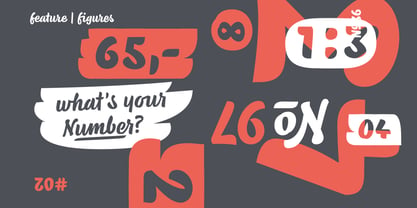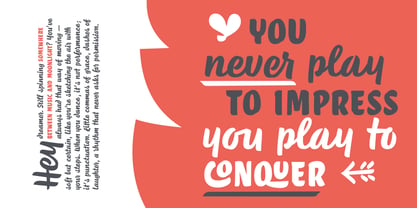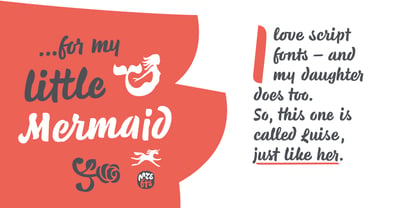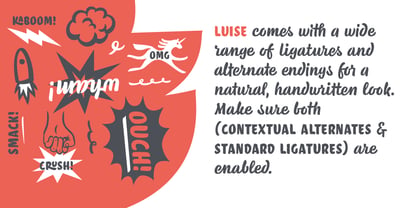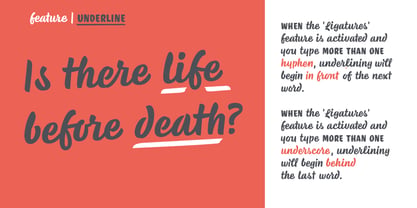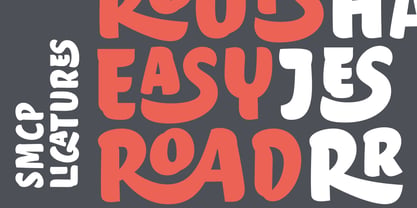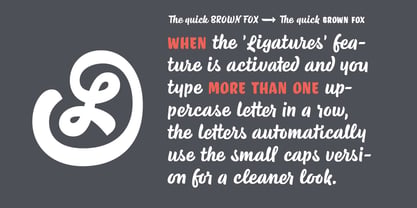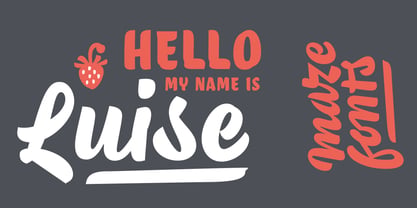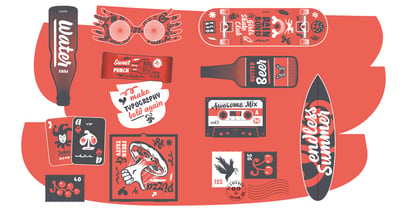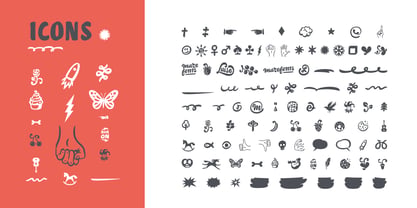
Luise
Die Schriftfamilie Luise wurde von Matthias Wieber entworfen und von mazefonts veröffentlicht. Luise enthält 1 Stile. Mehr über diese Familie
• Luise — Brush Script offers over 2.000 glyphs, including a wide range of ligatures and alternate endings for a natural, handwritten look. Enable Contextual Alternates and Standard Ligatures for best results.
• feature | smallcaps via ligatures
When the Ligatures feature is active and you type more than one uppercase letter in a row, the letters automatically switch to small caps for a cleaner look. Activate Small Caps and Stylistic Set 2 to use interlocking small caps.
• feature | underline
When the Ligatures feature is active and you type more than one hyphen, underlining begins in front of the next word. When the Ligatures feature is active and you type more than one underscore, underlining begins behind the last word.